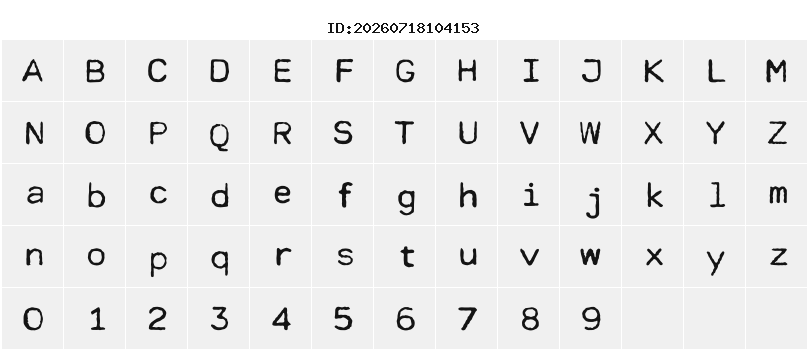
• Font Name: Cella
• Designer: Volker Busse
• Description: Die Schrift meiner alten Robotron-Reiseschreibmaschine CELLA
Cella.otf is a modern, elegant sans-serif font designed for ultimate readability and visual harmony. Perfect for branding, headlines, web design, and print materials.